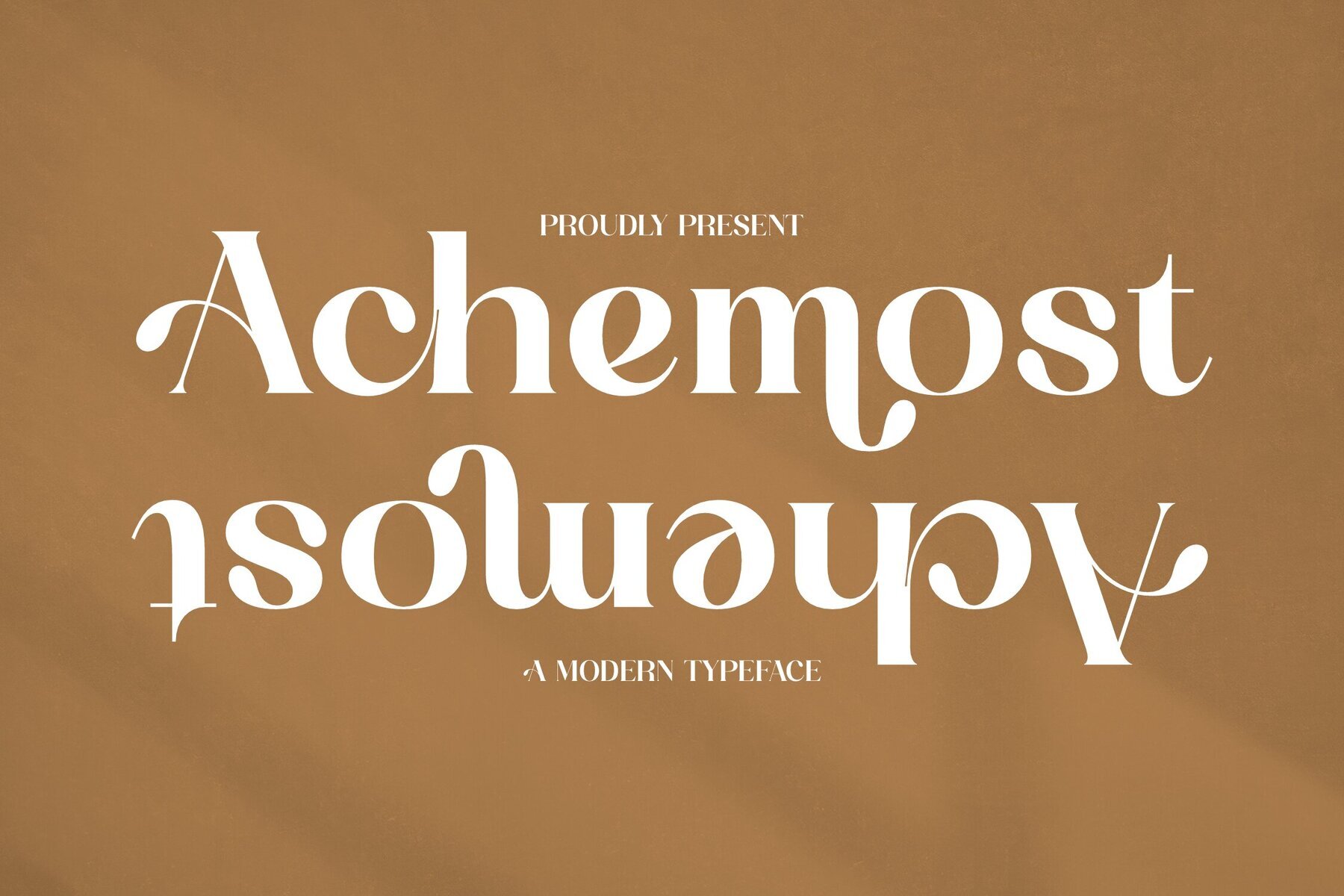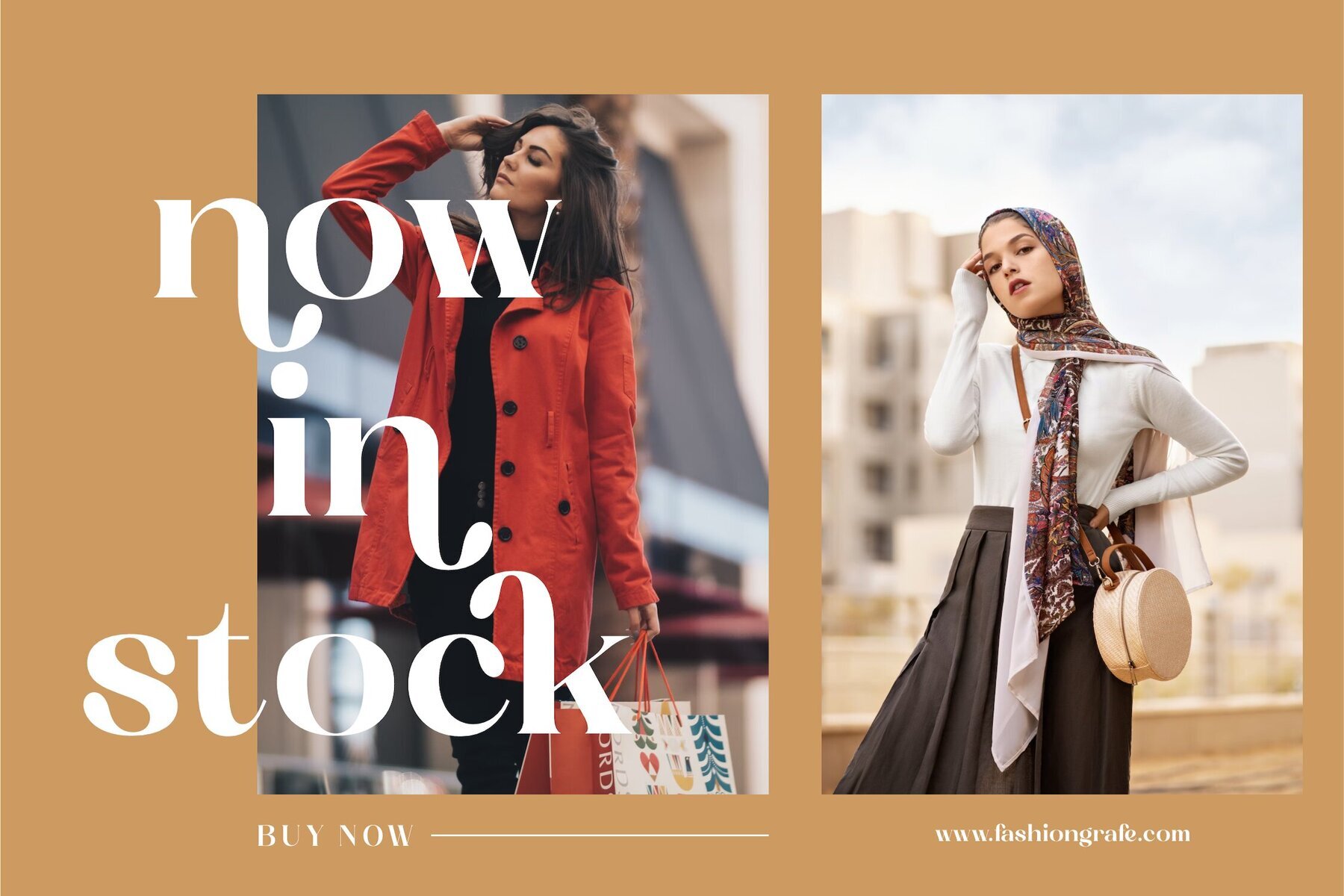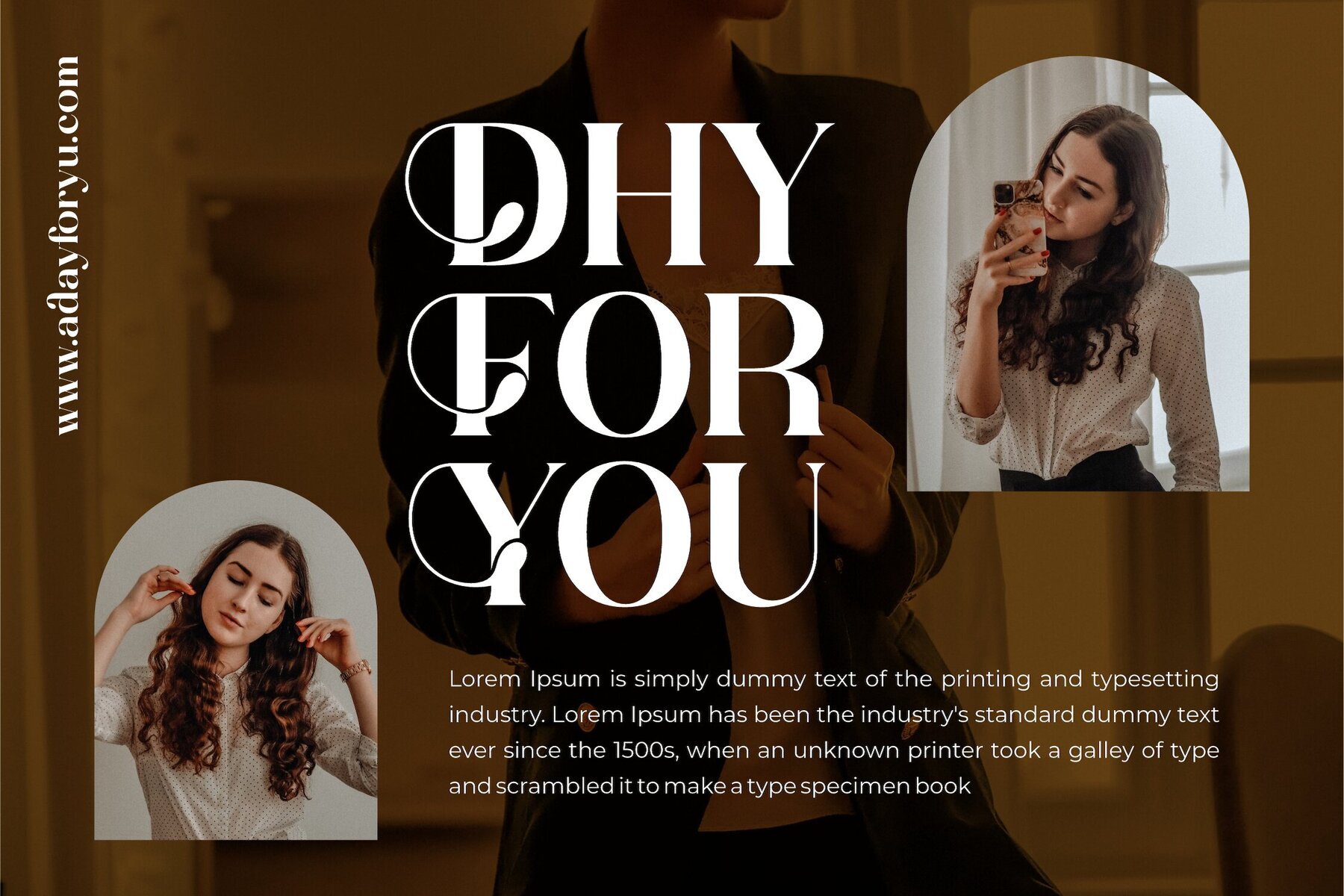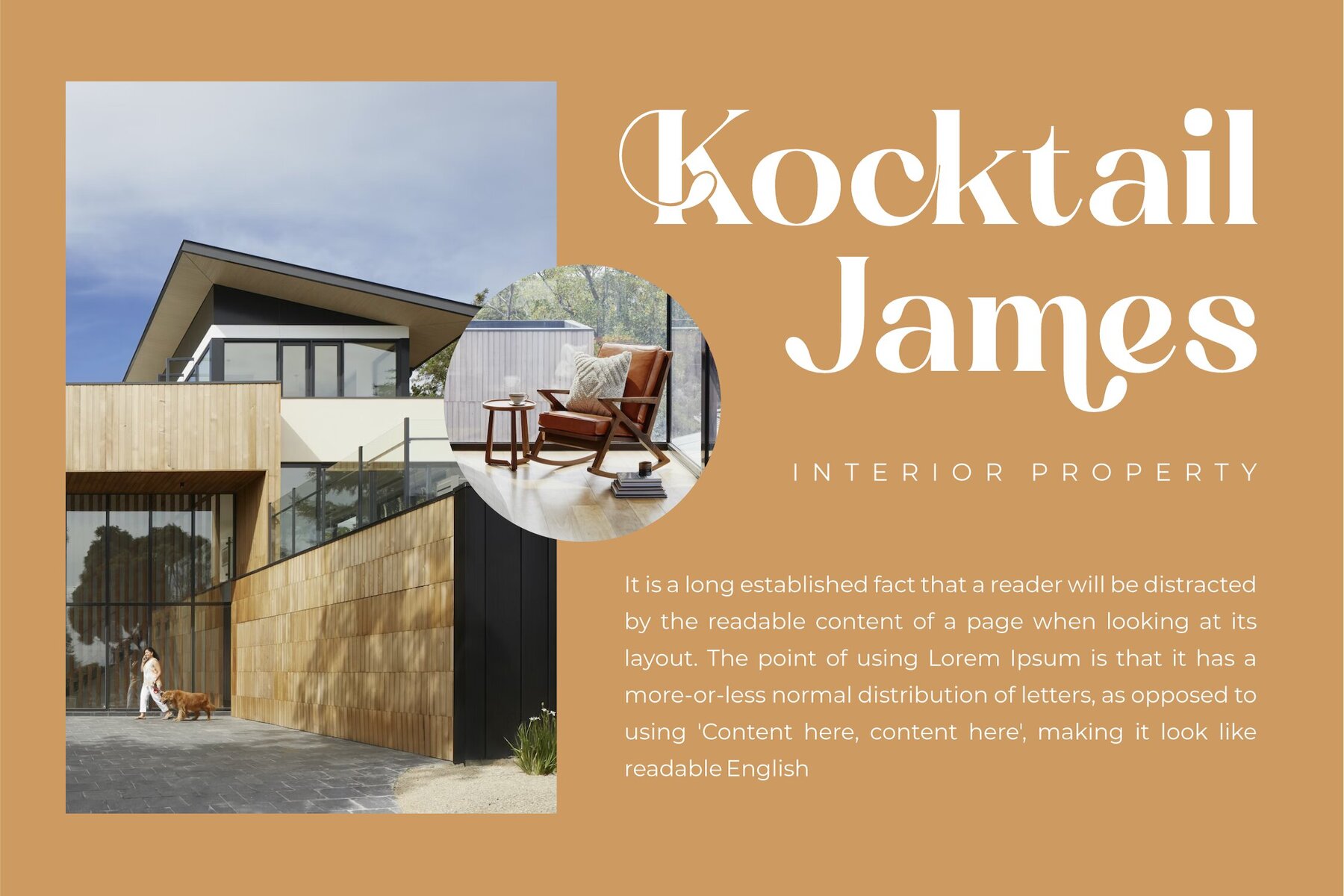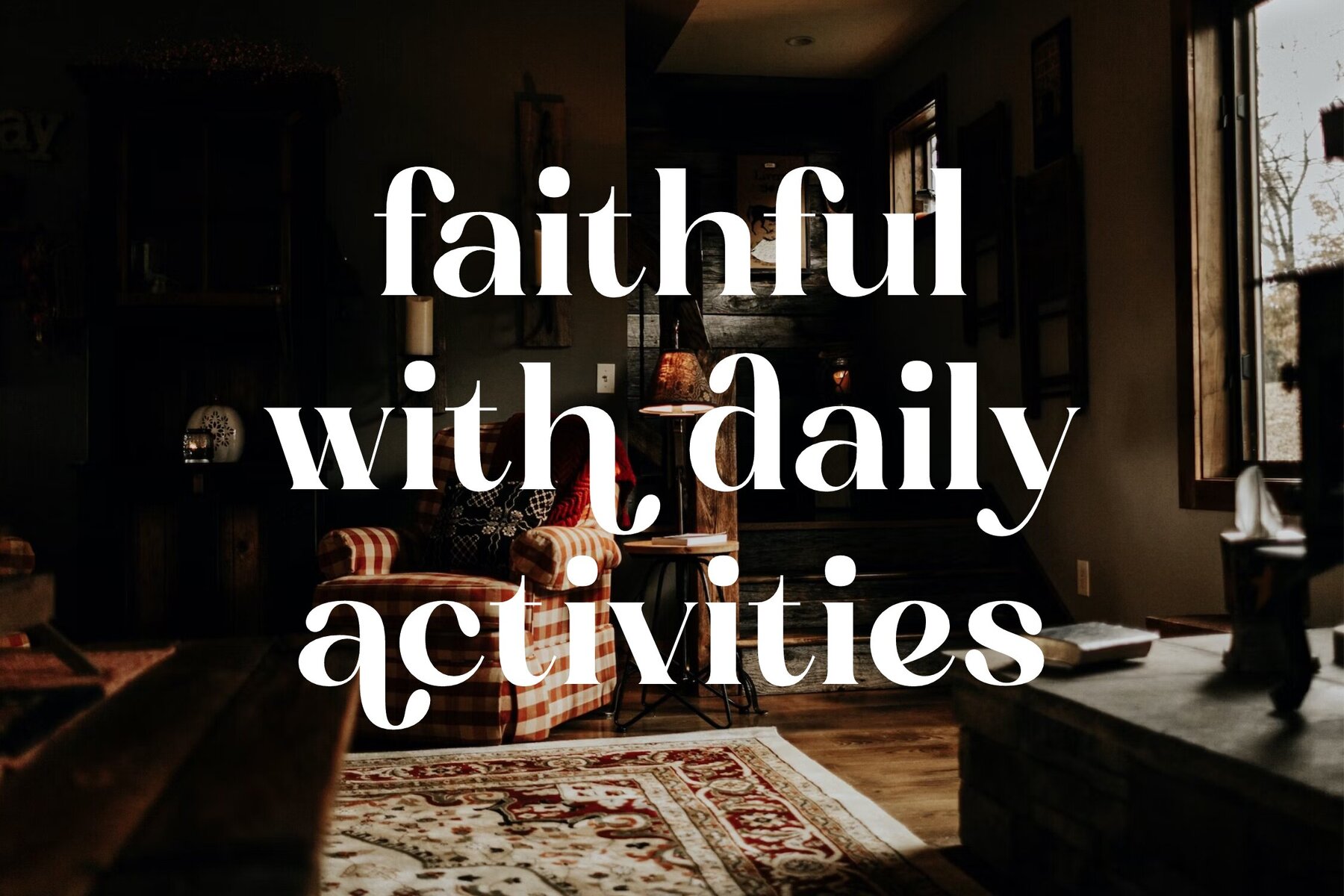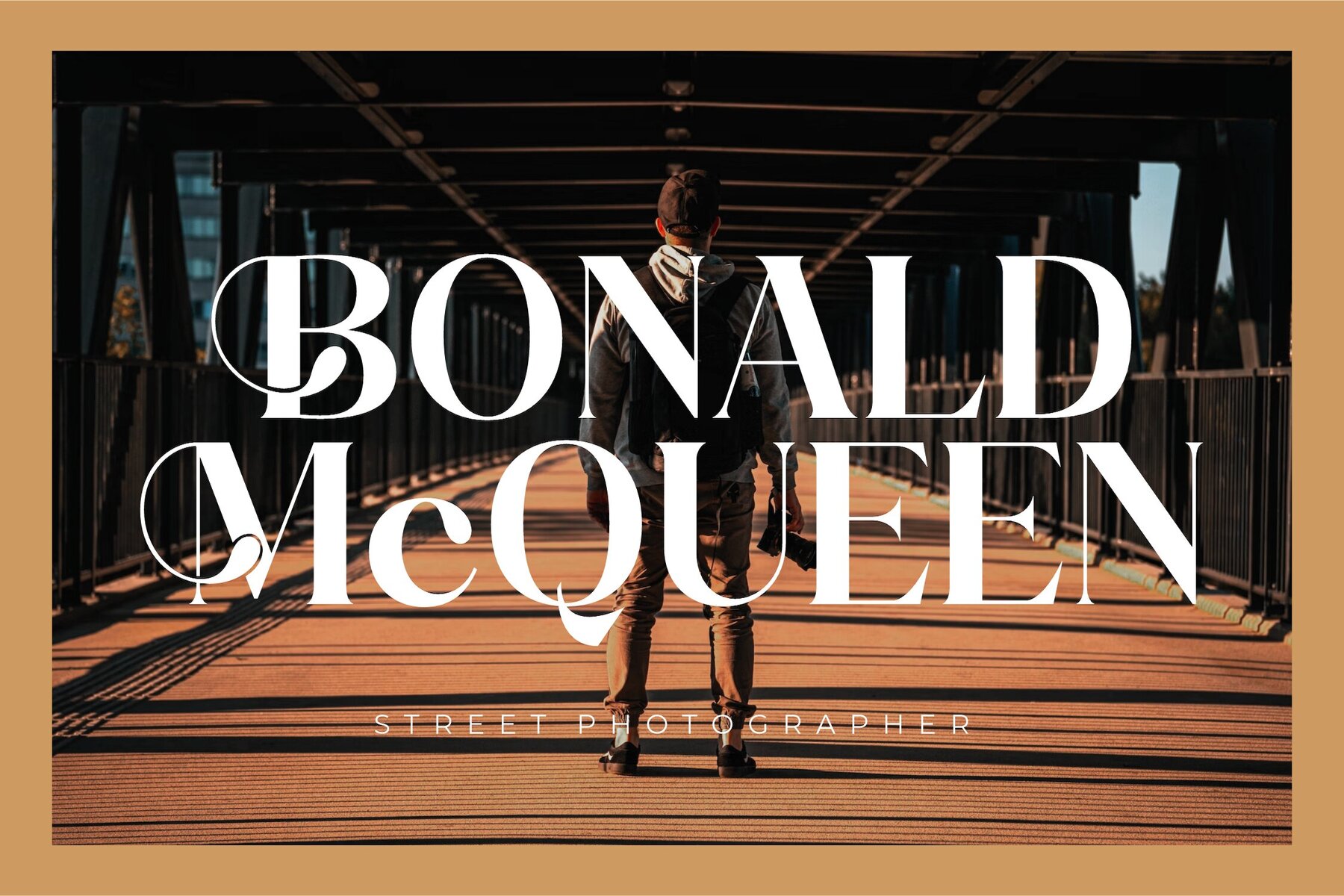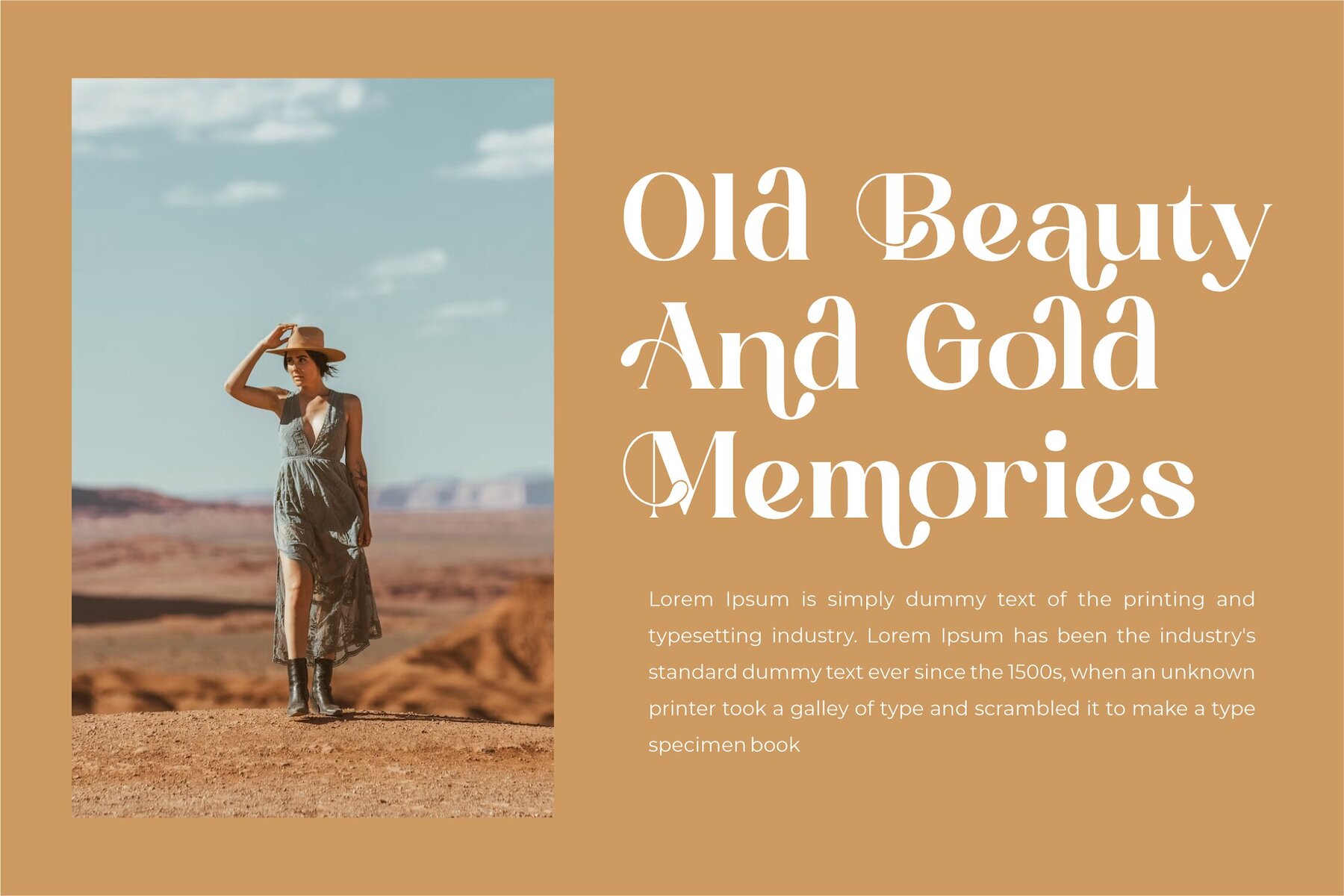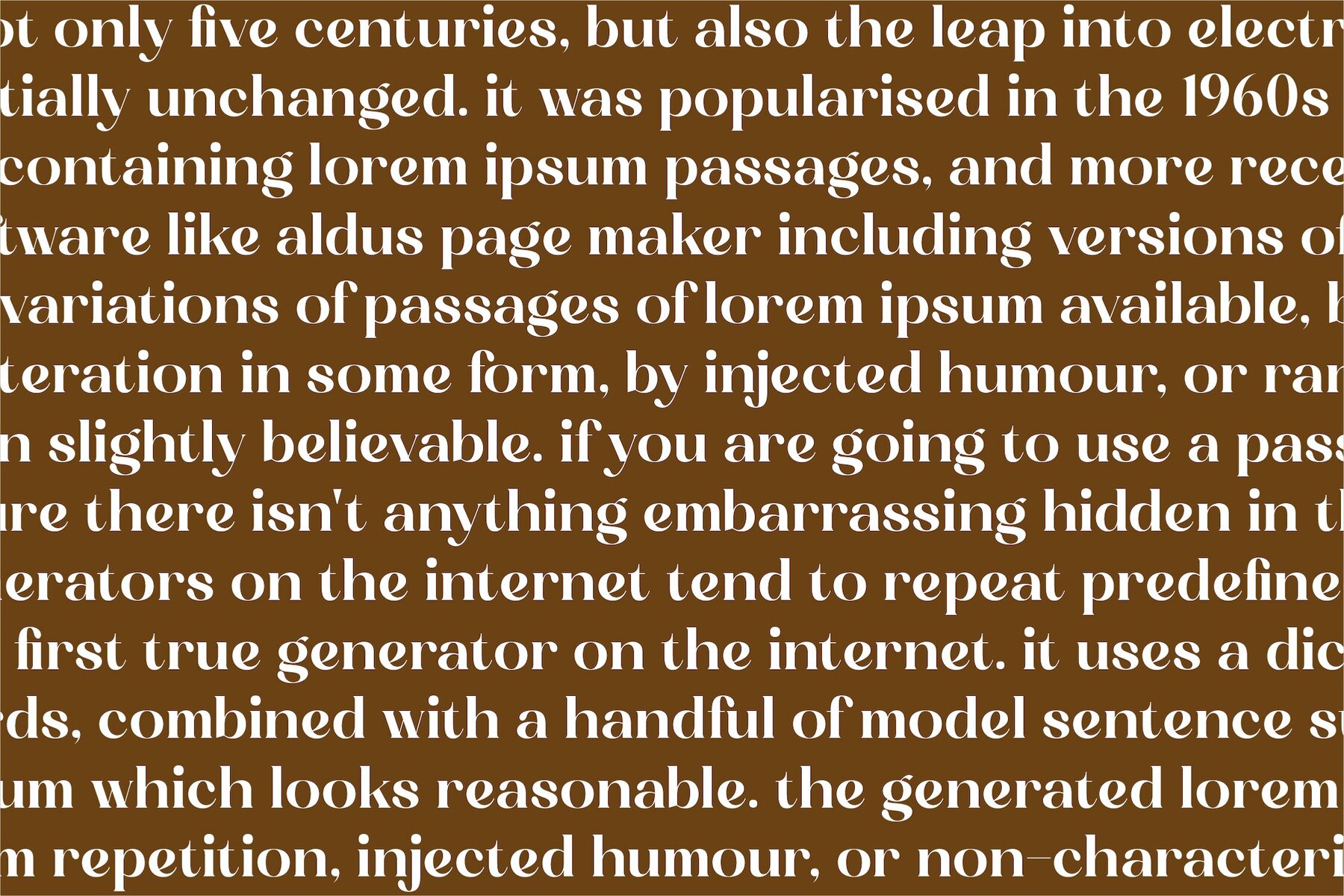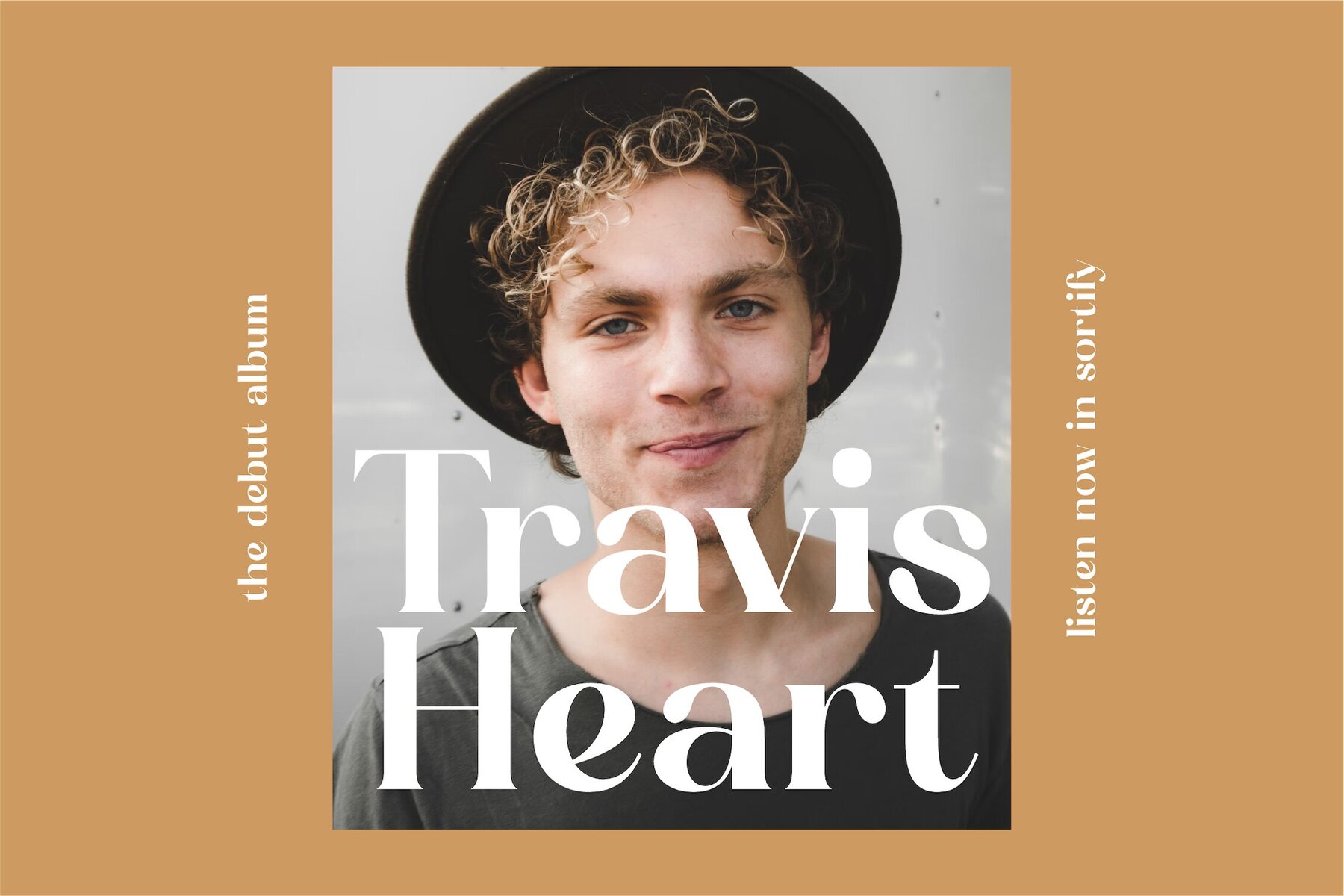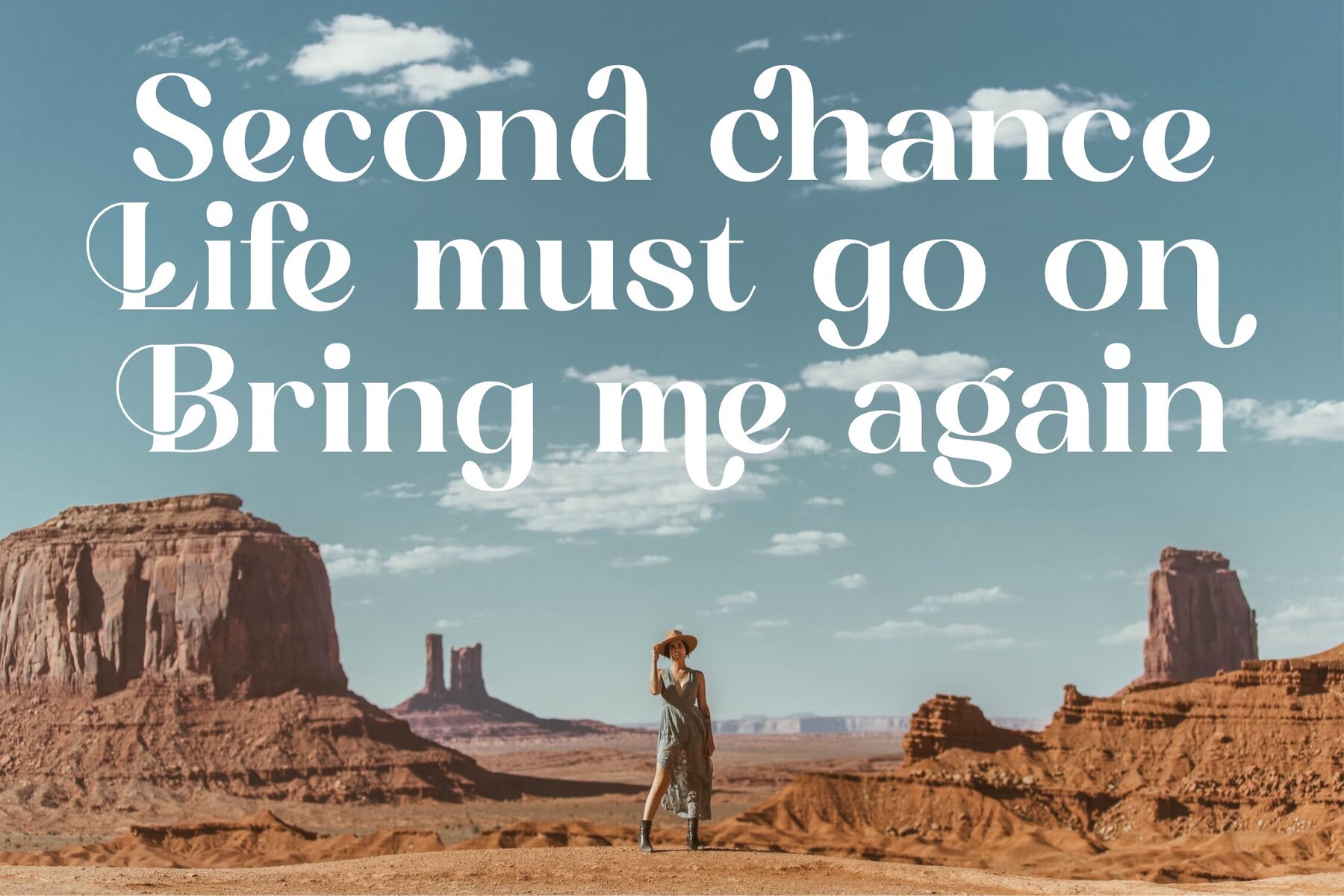
Achemost Font
Achemost
Achemost Italic
Introducing Achemost, a modern classic serif typeface that boasts a unique style and contemporary appeal. Ideal for those seeking a touch of elegance and luxury, Achemost is perfect for logos, book or movie titles, fashion brands, magazines, clothing, and creative lettering projects.Achemost Typeface